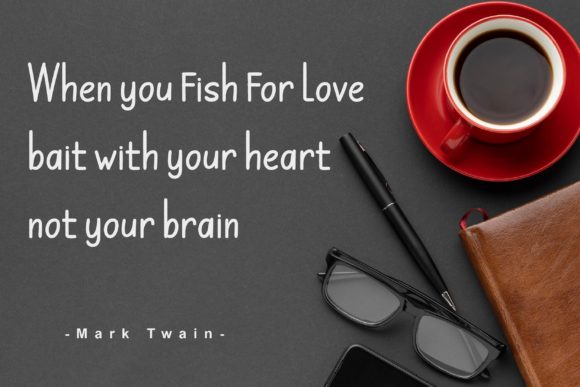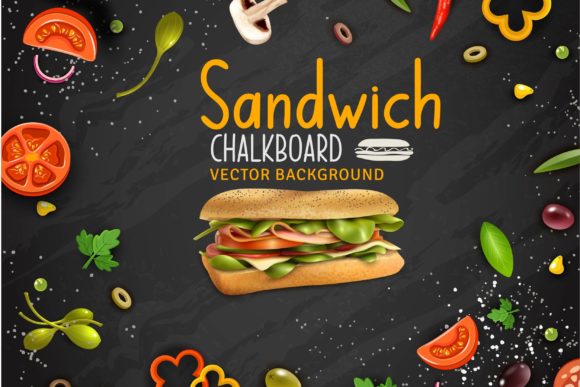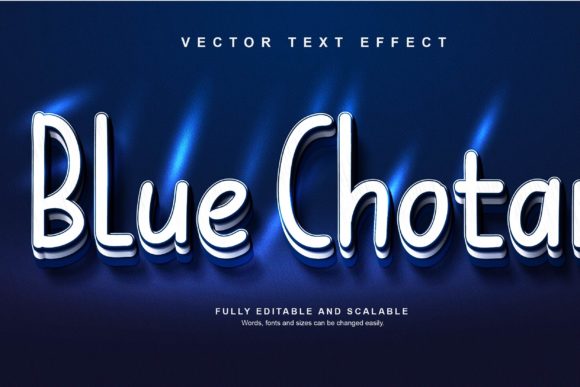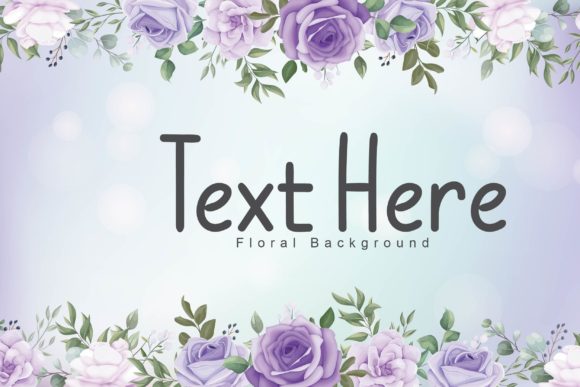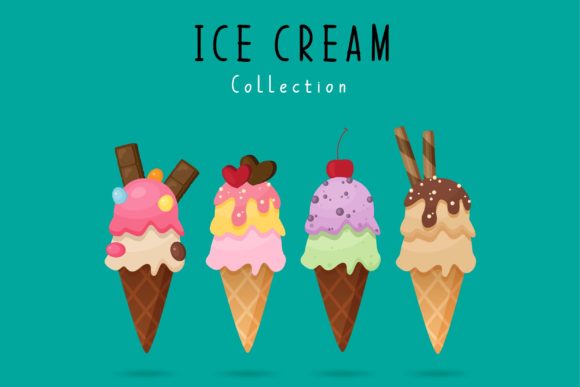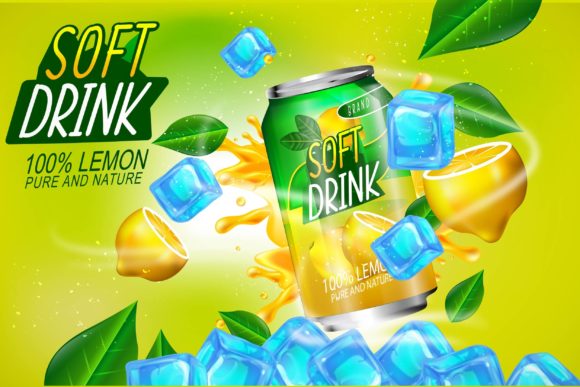
Introduction to Padukow Font
Have you ever found yourself sitting in front of a blank canvas, waiting for that perfect spark to ignite your creative project? For many designers, that moment comes when they stumble upon the perfect design resource – a font that sets the tone for their entire project. For me, that moment came when I discovered the Padukow Font. This simple, yet elegant handwritten font has been a game-changer for my designs, and I’m excited to share its beauty with you.
Whether you’re working on a children’s book cover, a poster for a cartoon character, or a quote that needs to stand out, the Padukow Font is a versatile and high-quality choice. Its natural and friendly feel makes it perfect for a wide range of creative projects, from children’s games to brand names. With its free download option and transparent background, you can use it to add a touch of beauty to any design, without worrying about complicated licensing or technical issues.
Key Features of Padukow Font
- Padukow Font comes with a transparent background, allowing for versatile usage in various design applications.
- Includes a range of font sizes and resolutions, from 72 dpi to 300 dpi, catering to different design requirements.
- Unique, hand-drawn design style that adds a personal touch to any creative project.
- Perfect for use in logos, typography, and other design elements where a distinctive font is desired.
Honest Review: Padukow Font
One of the standout features of the Padukow Font is its versatility. It comes in a variety of styles, making it suitable for a range of creative projects, from logos to typography-heavy designs. The font is also highly customizable, allowing designers to easily adjust the size, color, and even add a transparent background to create a seamless look.
- High-quality design with a range of styles to suit different projects
- Easy to customize, with options for size, color, and transparent background
- Some users may find the font too simplistic for more complex designs
Overall, I’m impressed with the Padukow Font. It’s a great addition to any designer’s toolkit, and its versatility and customizability make it a valuable resource for creative projects. ⭐️⭐️⭐️⭐️⭐️ (5/5 stars)
Padukow Font
The Padukow Font is a versatile design resource ideal for various creative projects. It is available for free download with a transparent background, ensuring seamless integration into your design.
The Padukow Font can also be used in PowerPoint and Word to add a touch of sophistication to your presentations and documents.
Tips for Getting the Most Out of Padukow Font
To get the most out of the Padukow Font, experiment with different font sizes, colors, and styles to find the perfect combination for your design.
Common Use Cases for Padukow Font
The Padukow Font is ideal for various creative projects, including logo design, branding, and advertising materials. Its high quality and versatility make it a valuable resource for designers and non-designers alike.
Alternatives to Padukow Font
Ostrich Sans is a modern sans-serif font ideal for creative projects requiring a clean and minimalist design. It is available for free download with transparent background, making it suitable for use on any design resource.
Compared to Padukow Font, Ostrich Sans offers a more versatile font family with a wider range of weights and styles, allowing designers to achieve a consistent look across their high-quality creative project.
Montserrat is a popular sans-serif font designed for use in urban environments, making it perfect for designers working on modern and edgy creative projects. It’s available for free download and features a transparent background, suitable for any design resource.
Montserrat is more geometric and condensed compared to Padukow Font, which gives it a unique and modern aesthetic. Its high quality and versatility make it a great alternative for designers looking for a modern sans-serif font.
Is the Padukow Font suitable for print or digital designs?
The Padukow Font is designed for both print and digital designs, making it a versatile resource for various creative projects. However, please ensure that you use the font at the recommended resolution for print designs to achieve the best results.